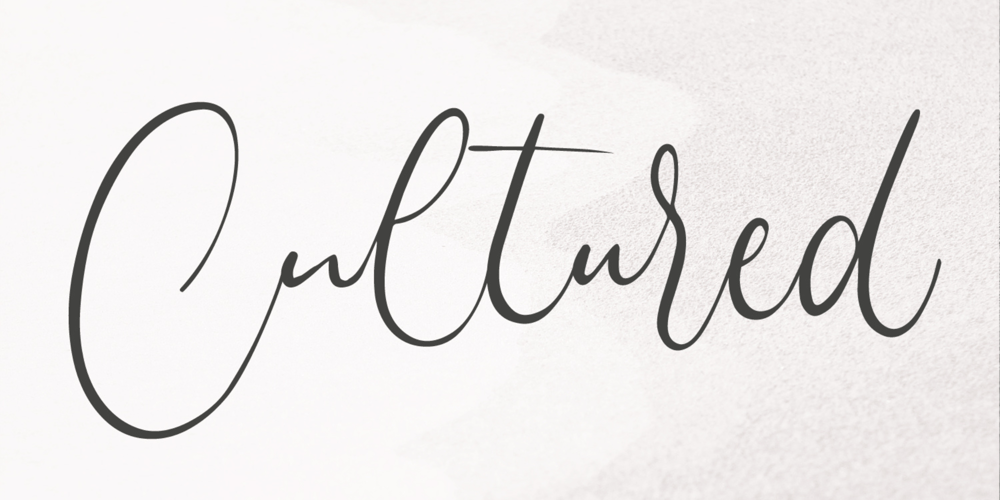
Cultured Font Family was designed by Irpan Maulana and published by Create Big Supply. Cultured contains 1 styles and family package options. Discover the charm of Cultured, a captivating handwritten font that adds a touch of elegance to your designs. With its natural feel and resemblance to authentic handwriting, Cultured brings a personal and intimate touch to your projects. Whether you’re designing wedding invitations, stationary art, or eye-catching social media posts, this font will elevate your creations and leave a lasting impression.Cultured features a comprehensive set of both uppercase and lowercase letters, offering versatility and creative freedom in your typographic endeavors. It also includes numbers and punctuation, ensuring seamless integration into your designs for a polished and cohesive look. With multilingual support, this font enables you to effectively communicate your message across different languages and engage with a diverse audience.One of the highlights of Cultured is its collection of ligatures, which enhance the natural flow and connectivity of the font. These ligatures provide a seamless transition between letters, creating a visually pleasing and handcrafted appearance. Each stroke showcases the attention to detail and cares put into crafting this font, making it a standout choice for projects that require a touch of sophistication.With PUA encoding, accessing the amazing glyphs and ligatures of Cultured is effortless. This feature allows you to unlock the full potential of the font, giving you the freedom to explore unique combinations and tailor your designs to perfection.Experience the elegance and artistry of Cultured and elevate your designs with their handwritten allure. Add a personal and refined touch to your projects and captivate your audience with this exquisite font.